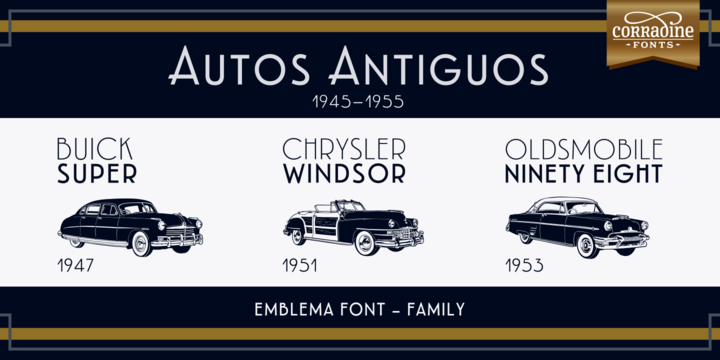
Emblema Family Font: A Timeless Art Deco Style for Modern Designs
In the world of typography, few fonts have managed to capture the essence of a bygone era while still exuding a sense of modernity. The Emblema Family Font is one such typeface that has successfully achieved this feat. With its roots in the Art Deco style of the early 20th century, Emblema brings a touch of elegance and sophistication to any design it is applied to. In this article, we will delve into the world of Emblema Family Font, exploring its history, design characteristics, and uses in modern design.
A Brief History of Emblema Family Font
The Emblema Family Font is an evocative typeface that draws inspiration from the Art Deco style of the early decades of the 20th century. Art Deco, short for Arts Décoratifs, was a popular design movement that emerged in the 1920s and flourished until the 1940s. Characterized by its use of geometric shapes, metallic materials, and ornate decorations, Art Deco influenced various aspects of design, including architecture, furniture, and typography.
Emblema Family Font is a product of this design movement, with its geometric shapes and clean lines giving it a distinctive look that is reminiscent of the era. The font’s design is inspired by the iconic typography of the time, which was marked by bold, geometric forms and a sense of luxury.
Design Characteristics of Emblema Family Font
Emblema Family Font is characterized by its geometric shapes, which give it a clean and modern look. The font features a range of design elements, including:
- Geometric shapes: Emblema’s design is based on geometric shapes, such as circles, triangles, and squares. These shapes give the font a sense of modernity and sophistication.
- Clean lines: The font’s lines are clean and precise, which adds to its modern aesthetic.
- Art Deco flair: Emblema’s design is influenced by the Art Deco style, with its use of ornate decorations and metallic materials.
The combination of these design elements gives Emblema Family Font a unique look that is both modern and nostalgic. The font’s geometric shapes and clean lines make it perfect for use in a variety of design applications, from branding and advertising to packaging and digital media.
Uses of Emblema Family Font in Modern Design
Emblema Family Font is a versatile typeface that can be used in a variety of design applications. Its modern aesthetic and Art Deco flair make it perfect for use in:
- Branding and advertising: Emblema’s unique design makes it perfect for use in branding and advertising campaigns, where it can help to create a sense of luxury and sophistication.
- Packaging design: The font’s clean lines and geometric shapes make it suitable for use in packaging design, where it can add a touch of modernity and elegance.
- Digital media: Emblema Family Font can be used in digital media, such as websites and social media graphics, where its modern aesthetic can help to create a sense of professionalism and sophistication.
The font’s versatility and unique design make it a popular choice among designers, who can use it to create a wide range of designs, from elegant and sophisticated to bold and eye-catching.
Tips for Using Emblema Family Font
Here are some tips for using Emblema Family Font in your designs:
- Use it sparingly: Emblema’s unique design can be overwhelming if used excessively. Use it sparingly to create a sense of elegance and sophistication.
- Pair it with other fonts: Emblema can be paired with other fonts to create a unique and visually appealing design.
- Experiment with colors: The font’s design looks great in a range of colors, from metallic materials to bold and bright colors.
By following these tips, you can create stunning designs that showcase the beauty and elegance of Emblema Family Font.
In conclusion, Emblema Family Font is a timeless typeface that brings a touch of elegance and sophistication to any design it is applied to. Its geometric shapes, clean lines, and Art Deco flair make it a unique and versatile font that can be used in a variety of design applications. Whether you’re a designer looking to create a stunning brand identity or a marketer seeking to create eye-catching advertising campaigns, Emblema Family Font is a great choice.